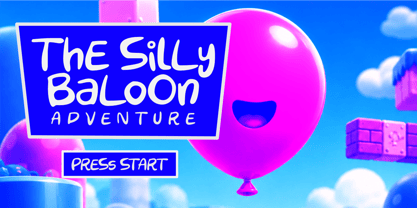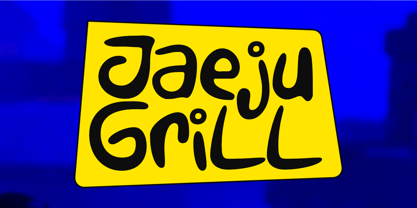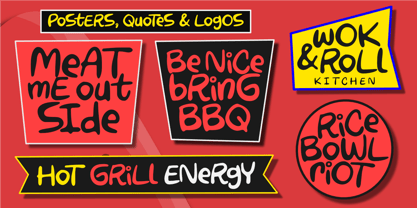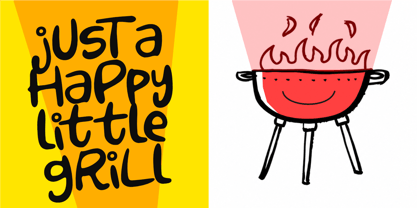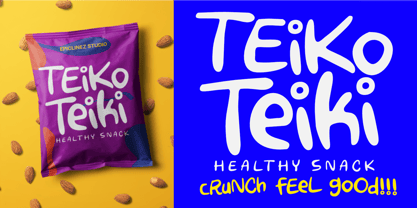
Jaeju Grill
by Olivetype
The Jaeju Grill Font Family was designed by Nurul Hidayani and published by Olivetype. Jaeju Grill contains 1 styles. More about this family
Jaeju Grill is a playful kids display font inspired by fun street food adventures, happy BBQ nights, and colorful cartoon vibes. With its chunky letterforms, bouncy style, and cheerful personality, this font brings instant joy to every design. Perfect for kids branding, snack packaging, food posters, game titles, YouTube thumbnails, comic projects, restaurant menus, birthday invitations, and playful logos. Jaeju Grill delivers a warm, tasty, and energetic feeling that makes your typography look deliciously fun and unforgettable.